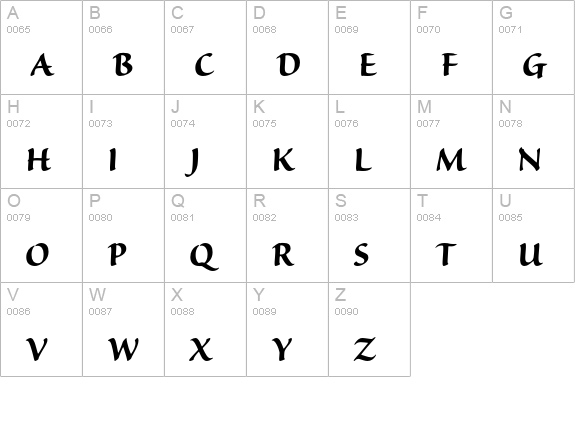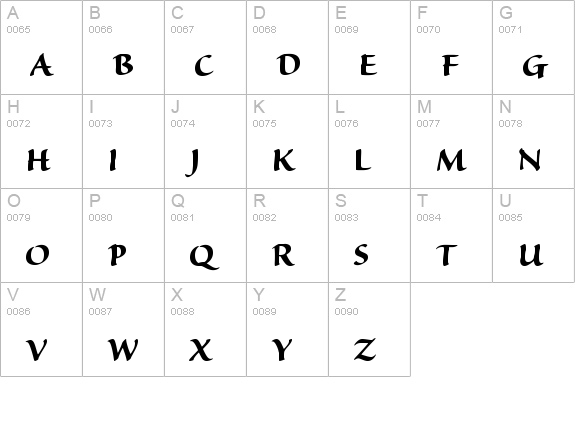
Sanvito Pro Bold Font Details
Sanvito Pro Bold is a strong, high-contrast variant in the Sanvito typeface family \xE2\x80\x94 well suited to headlines, attention-grabbing titles, and strong calls-to-action.
Sanvito Pro Bold is a bold and impactful font that effortlessly captures attention with its strong and confident appearance. Crafted with precision and attention to detail, this font exudes a sense of sophistication and elegance. With its well-defined and sharp letterforms, Sanvito Pro Bold is perfect for creating eye-catching headlines, titles, and logos that demand immediate attention. Its bold weight adds a touch of power and authority to any design, making it the ideal choice for conveying a strong and impactful message. This font is freely available to download at FontsMarket.com, allowing designers, creatives, and enthusiasts to effortlessly access this exquisite typeface for their projects. Whether you are working on a branding project, editorial design, or any other creative endeavor, Sanvito Pro Bold ensures that your typography stands out and leaves a lasting impression. The versatility of Sanvito Pro Bold extends beyond its bold weight, as it effortlessly pairs well with a variety of other typefaces, allowing for endless possibilities and creative combinations. Its clean and legible design makes it suitable for both print and digital applications, ensuring that your message is effectively communicated across multiple platforms. Sanvito Pro Bold is a font that embodies both style and functionality, making it a valuable addition to any designer's toolkit. Its timeless appeal and modern aesthetic make it a go-to choice for designers looking to make a bold statement. Download Sanvito Pro Bold for free at FontsMarket.com and elevate your typography to new heights.